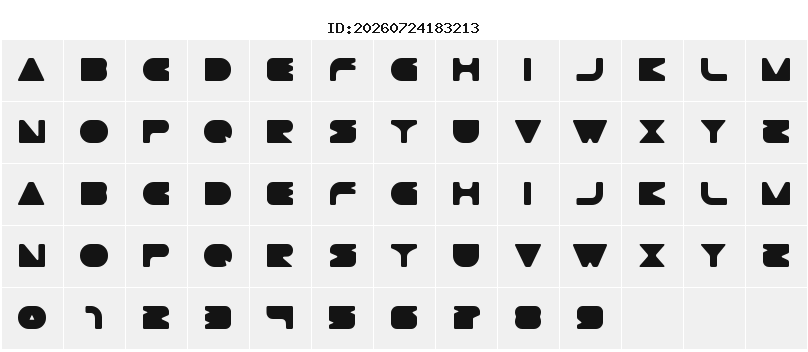
• Font Name: Gtek Minimal
• Designer: Carlos Matteoli a.k.a. Qbotype
About Gtek Minimal .ttf
Gtek Minimal .ttf is a modern, elegant sans-serif font designed for ultimate readability and visual harmony. Perfect for branding, headlines, web design, and print materials.